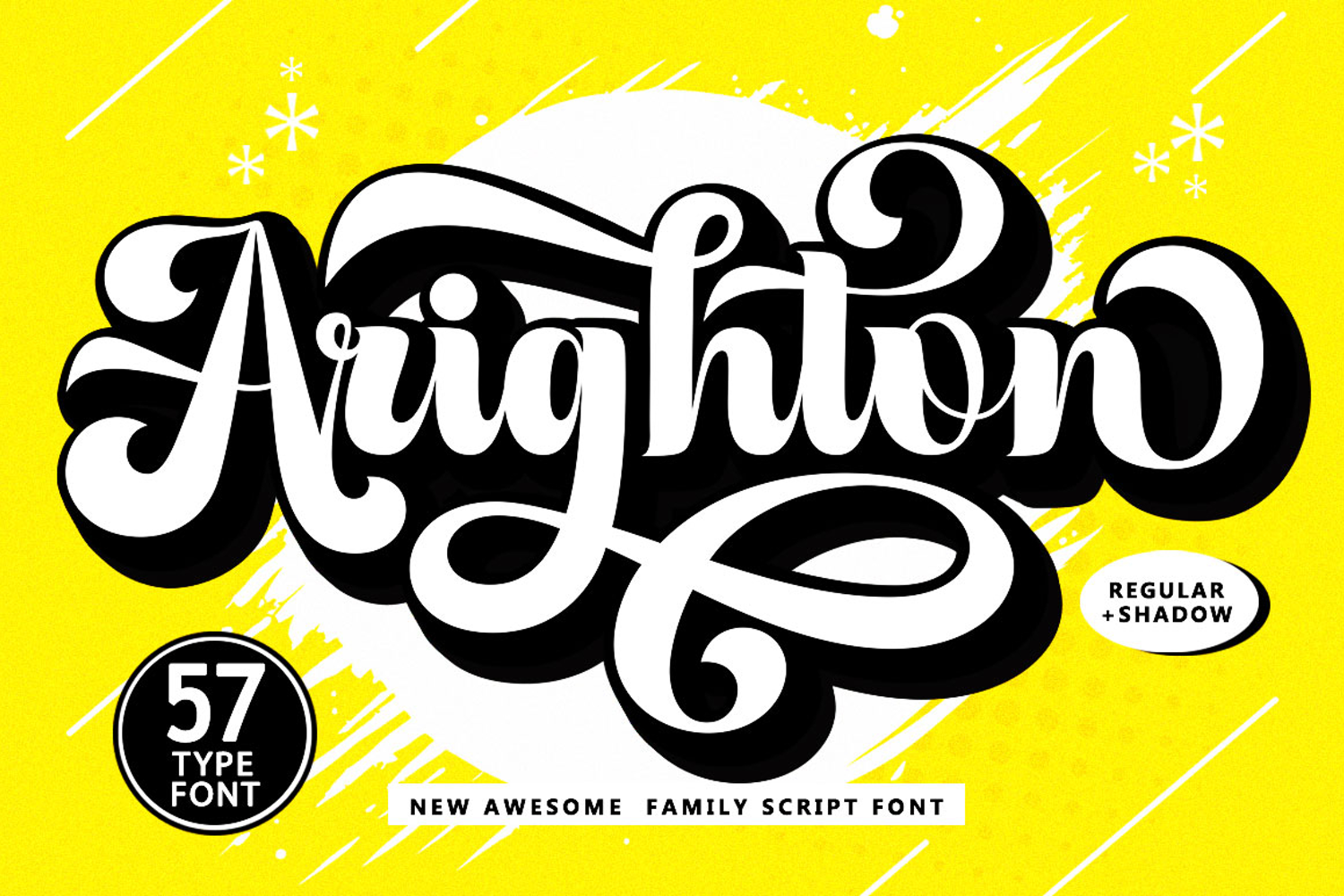
Arighton - Family Font In 57 Type
Arighton Font Family is a modern retro script font with a classic and elegant touch. It's bold, confident, and dynamic, adding a nostalgic character to your designs..
The retro style is perfect for applying in various formal forms such as invitations, labels, restaurant menus, logos, fashion, makeup, stationery, novels, magazines, books, greeting/wedding cards, packaging, labels or any type of advertising purposes and you will definitely impress your audience. . . . .
Uppercase & lowercase
Numbers & punctuation
Multilingual
Ligatures
Alternatives
Swashes
Shadow